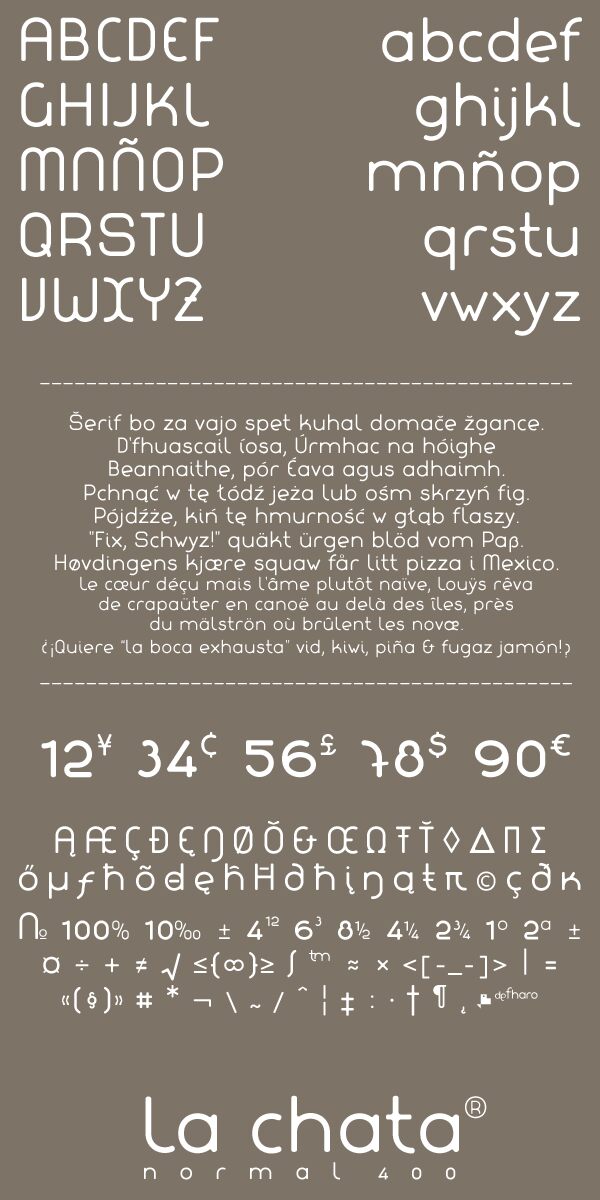
Lachata by Fernando Haro of deFharo.com is a free rounded sans serif with tall, slender letters, even strokes, and generous rounded shapes. Broad arches and softly bent corners keep it relaxed and informal.
Friendly technology and lighthearted contemporary themes suit its smooth, simplified drawing across app graphics and educational publishing aimed at younger readers. Its clean curves also fit cosmetics packaging and cafe branding, where the lettering suggests an approachable product rather than corporate formality. In digital campaigns, the distinctive arches can become part of an icon or interface motif instead of serving only as neutral text.
This is a uniform sans-serif typeface with rounded finishes on the ends of stems, apexes, vertices, tails, and spurs, as well as at the joins with crossbars, bars, and shoulders.